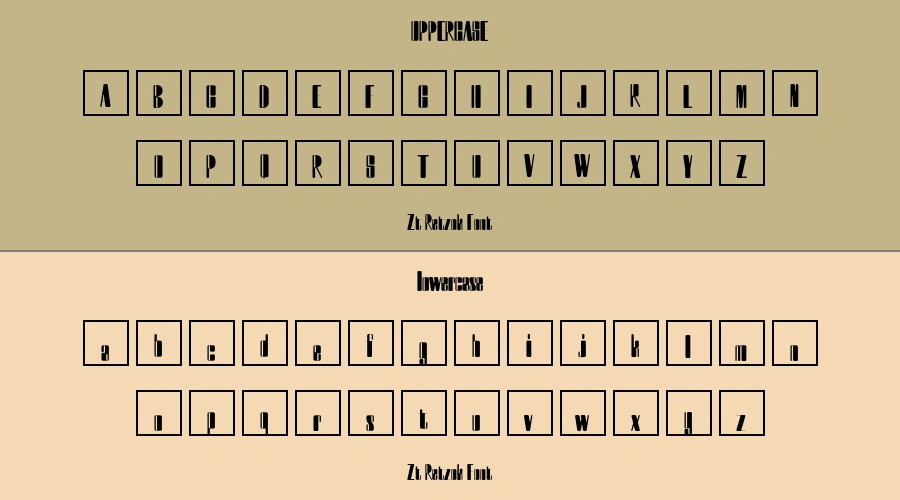
About Zt Retzok Font
Designed with precision, Zt Retzok Font merges confident strokes with attention direction in every character. This versatility makes it particularly effective for legal documents, where authenticity and traditional values directly impact communication quality. Each letterform demonstrates meticulous craftsmanship.
Technical excellence shines through elements like systematic design and mid-word alternates, enhancing typographic versatility. In historical documents settings, Zt Retzok Font proves its worth through superior reproduction fidelity. The thoughtful execution of counter size and personality ensures professional results.